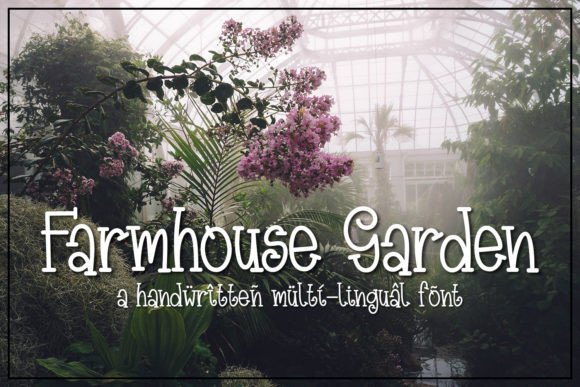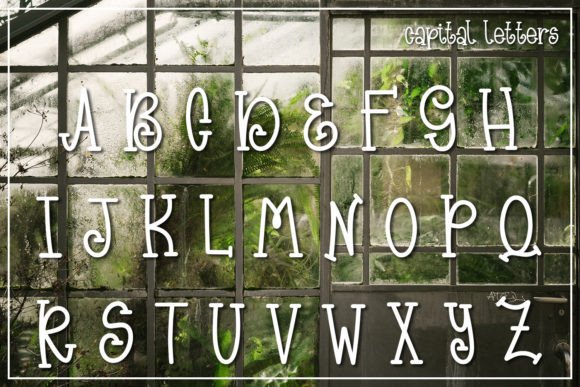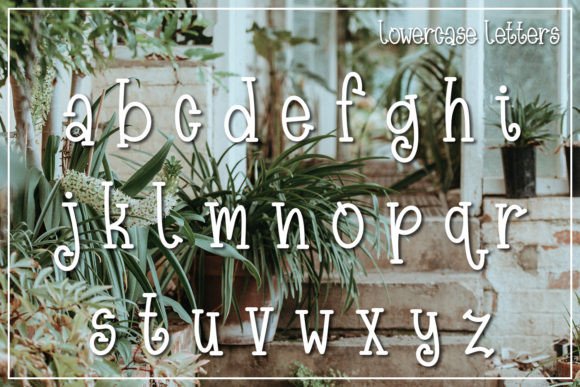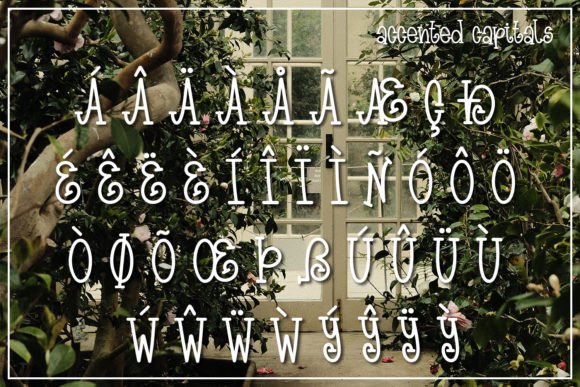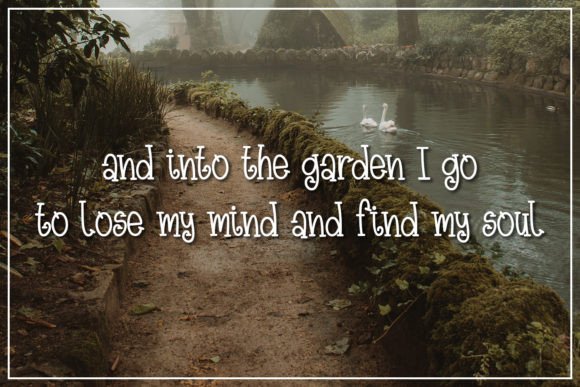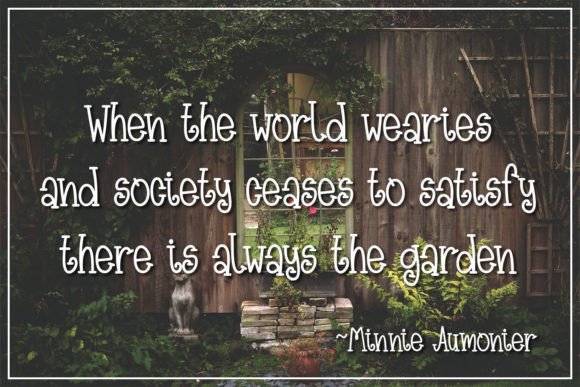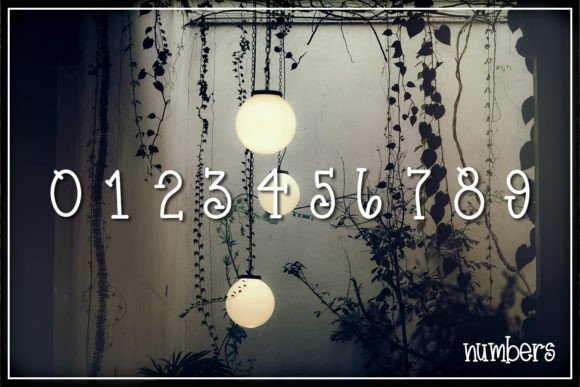
Farmhouse Garden Font
Immerse yourself in the charming world of Farmhouse Garden, a captivating handwritten slab serif font. With a passion for fonts that boast elegant slabs and serifs, I poured my heart into creating this design. It embodies the rustic allure of a flourishing farmhouse garden, evoking a sense of warmth and authenticity.